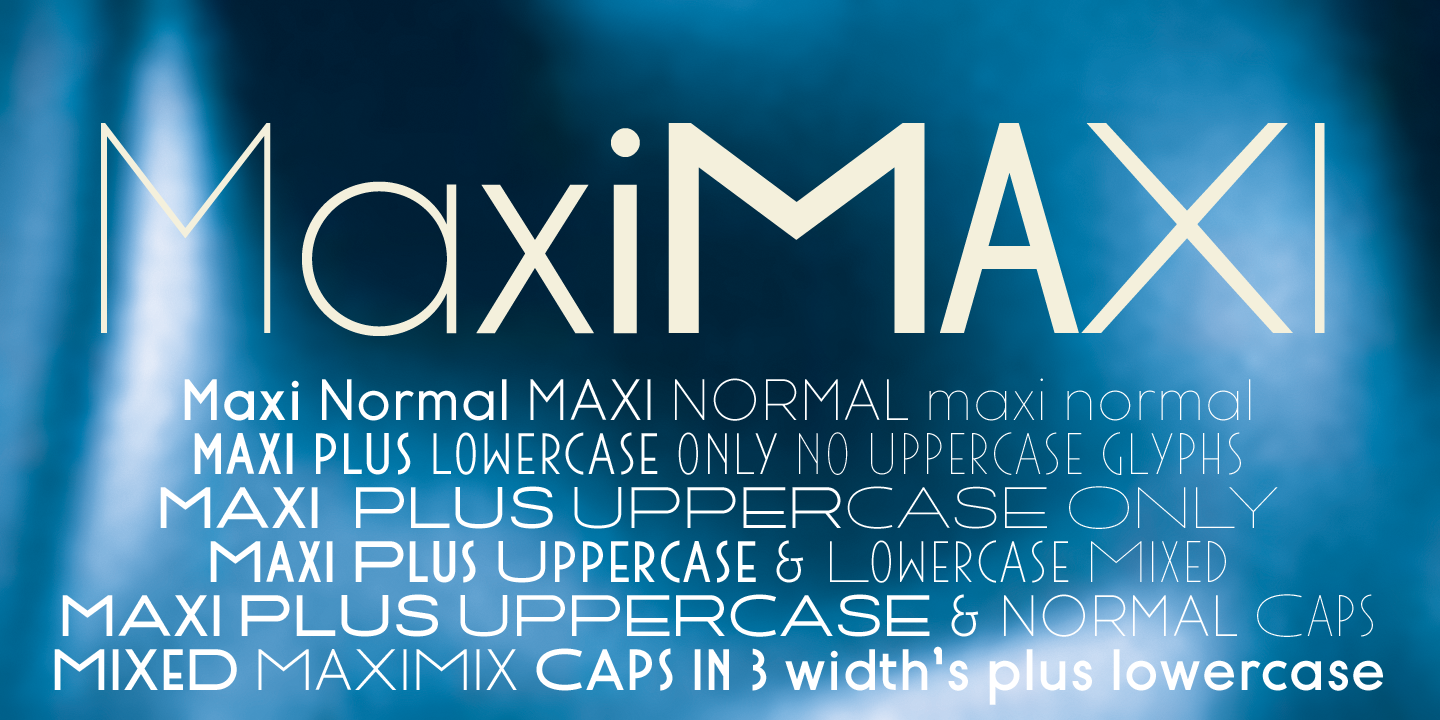
Maxi fonts
»Maxi« is a very french linear, geometric sans typeface, that can be used in all latin languages. The »Maxi Plus« has narrow uppercase glyphs instead of lowercase letters and the uppercase glyphs are extra wide, so you can combine three different widths of caps to get a unique design. The two fonts come in the same five weights each. Before I publish these fonts through my usual channels I am offering them at a reduced pre-publication-price. Enjoy!